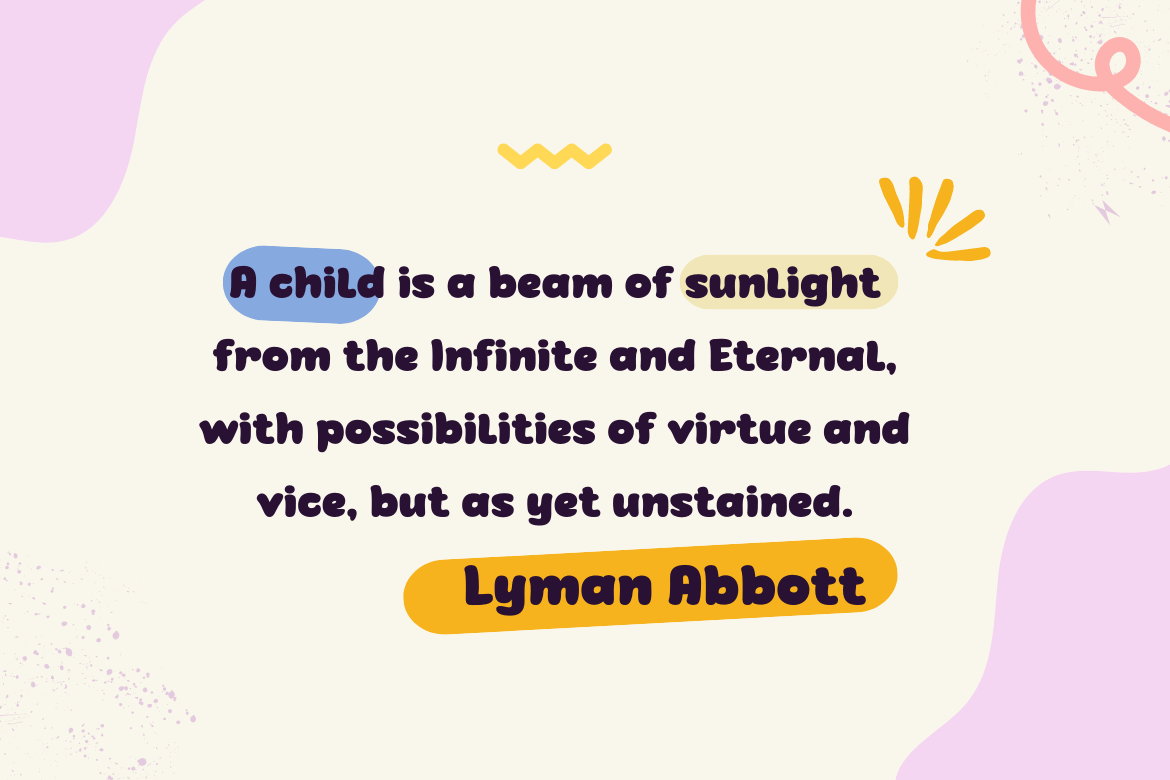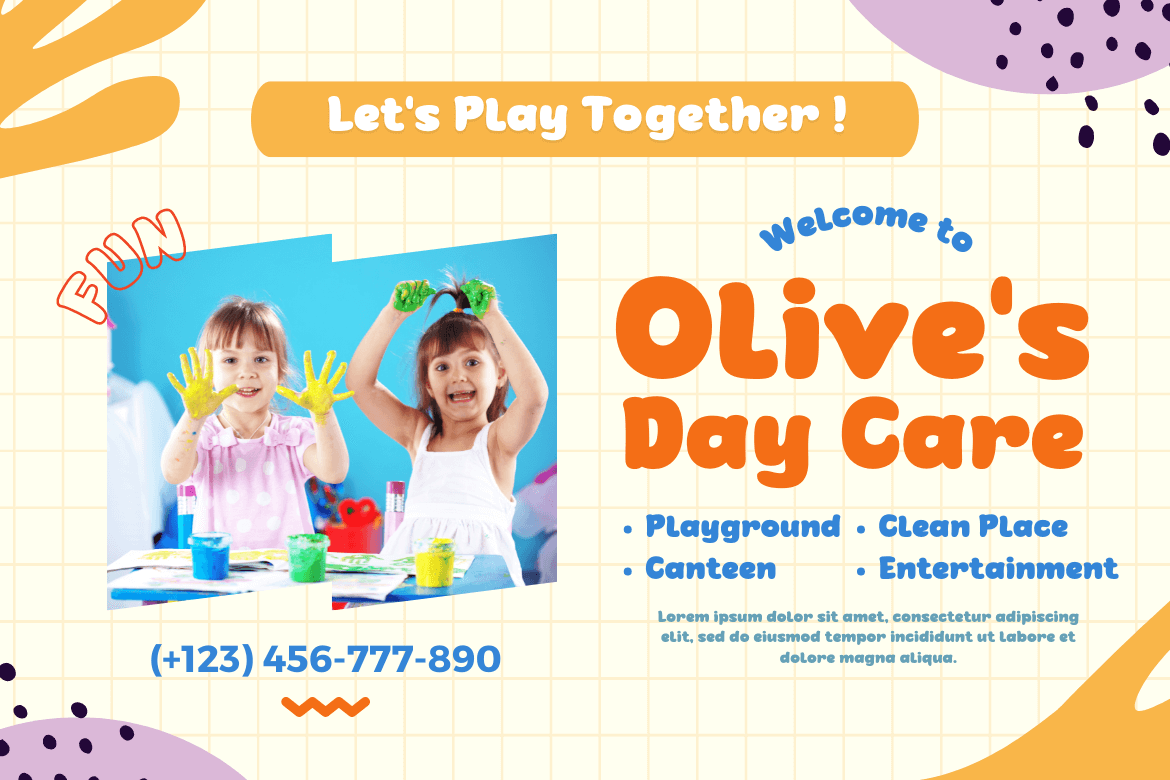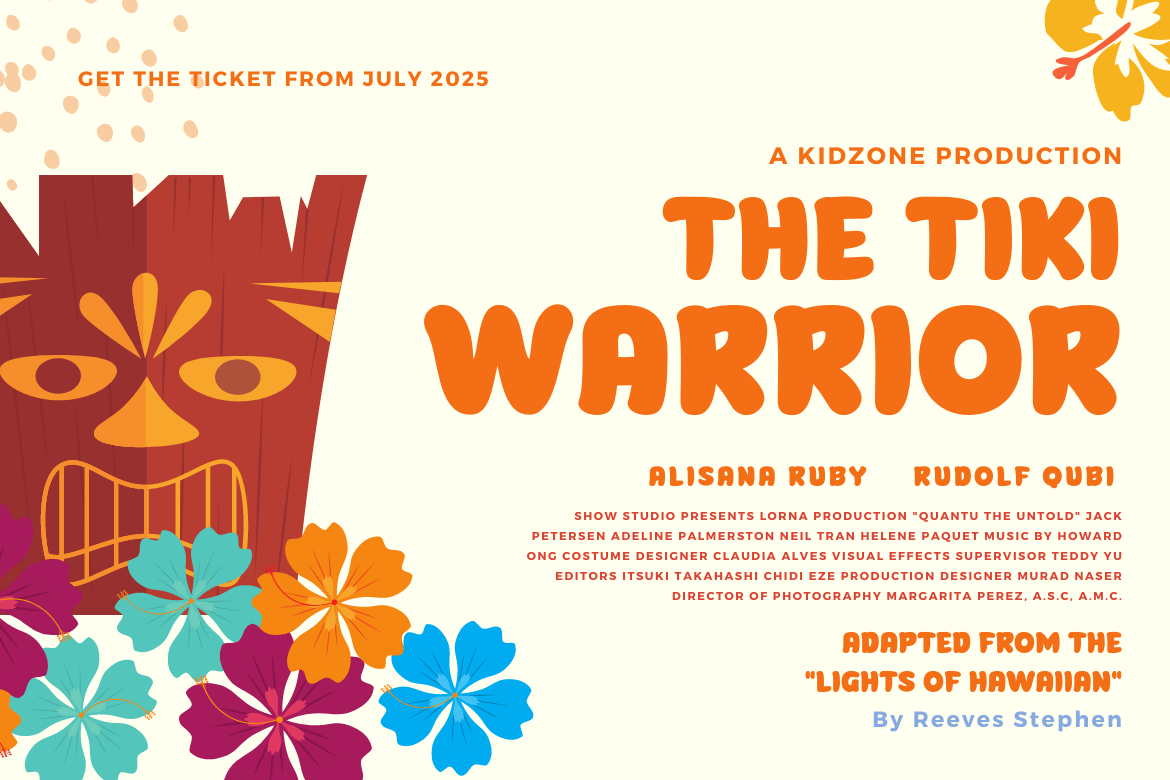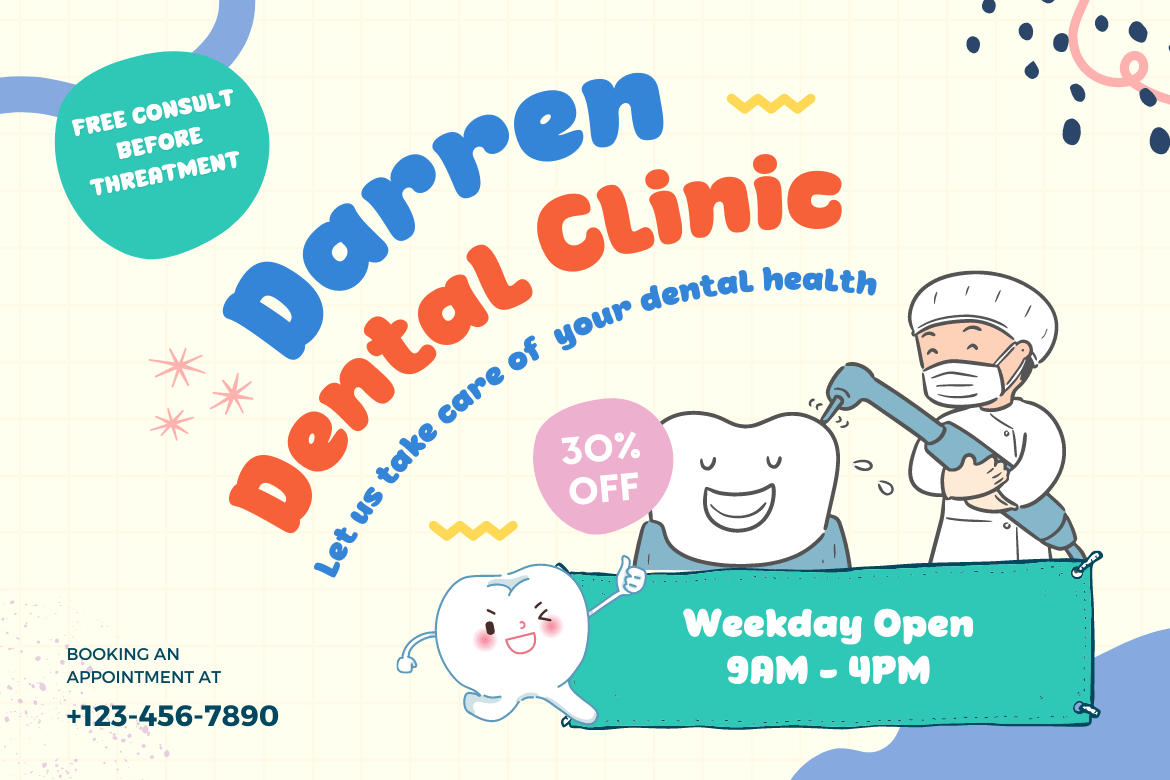
Gijsuy Font
Gijsuy Display Font
The idea of spreading spilled ink and filling the shape of letters inspired this playful handwritten bold typeface. The rounded corners are pleasing to the eye and give the impression of friendliness to the viewer. Greeting cards, children’s books, quotes, posters, invitations, business cards, movie title banners, and more can all benefit from this design.